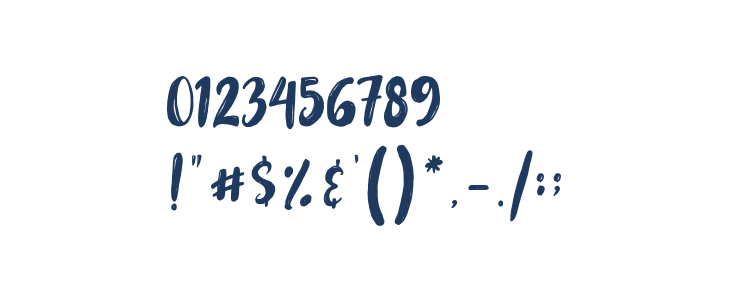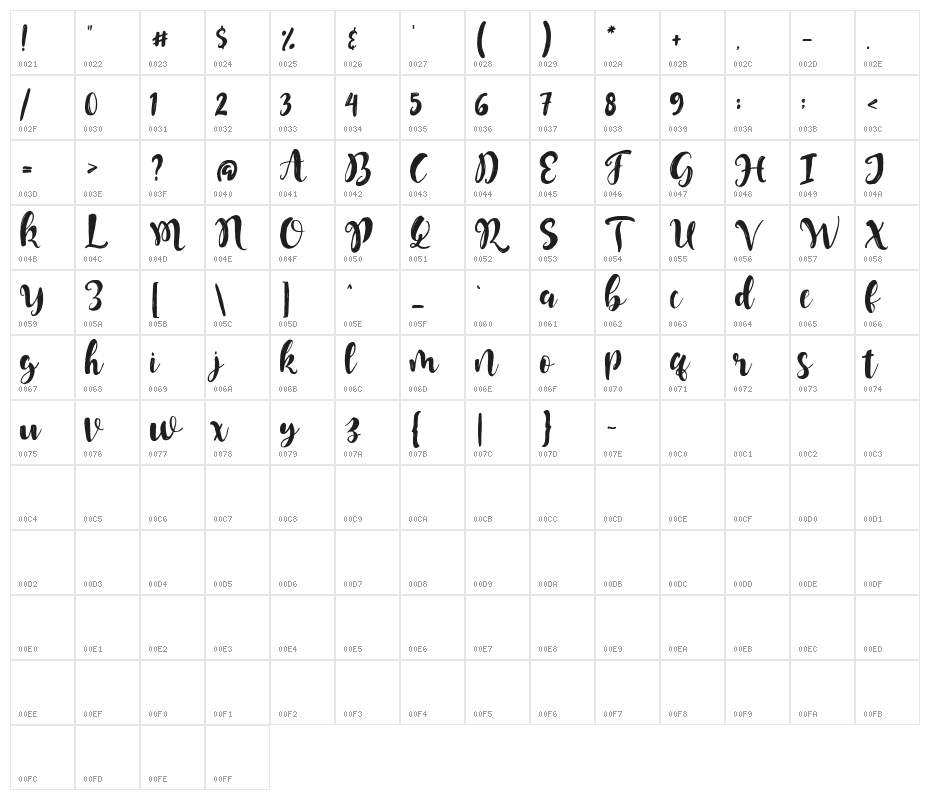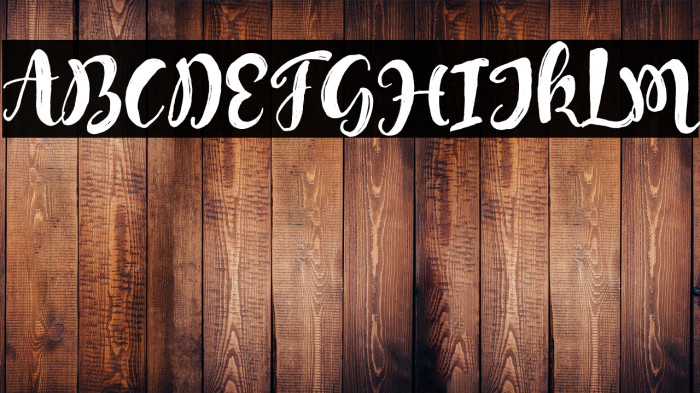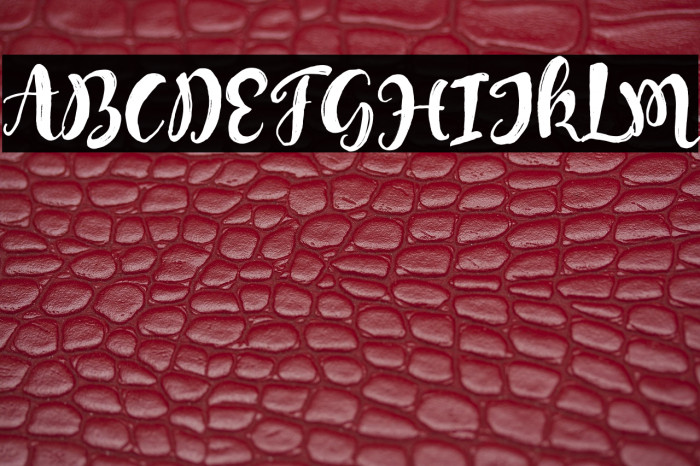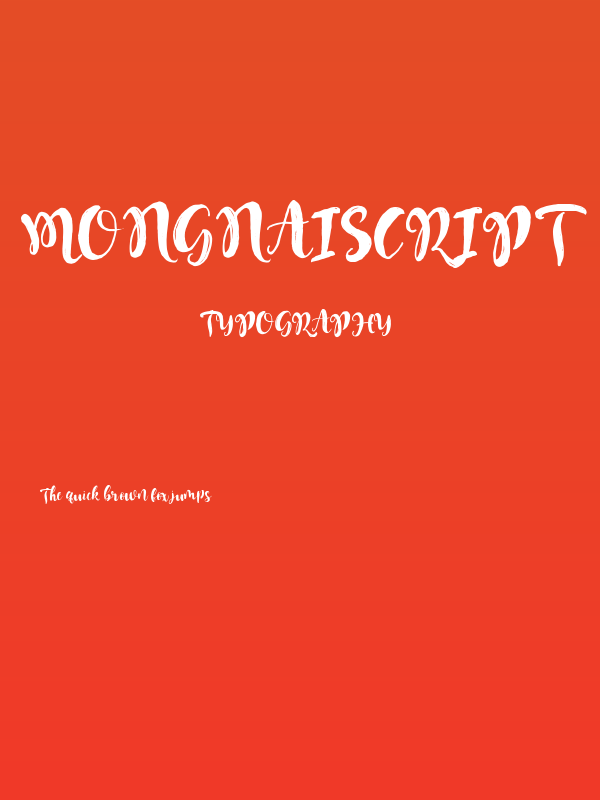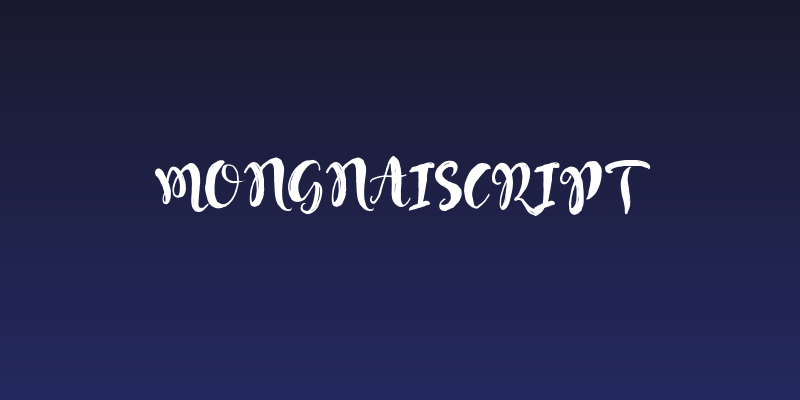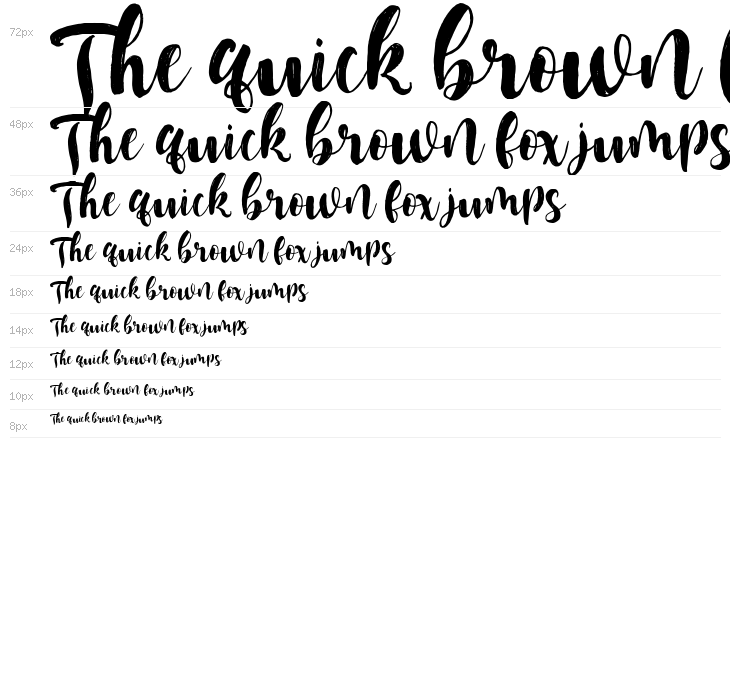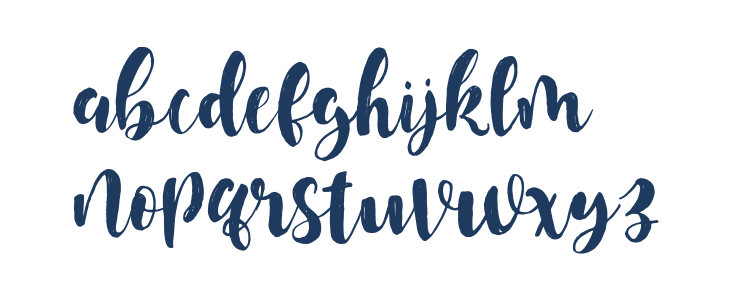
MongnaiScript Font
MongnaiScript Description
This font exhibits a bold and expressive script style, characterized by its fluid and dynamic strokes. The letters are interconnected, creating a sense of continuity and flow. The uppercase letters are slightly more ornate, with flourishes that add a touch of elegance. The lowercase letters maintain a consistent rhythm, enhancing readability while retaining the script's artistic flair. The numerals are clear and bold, matching the overall style of the alphabet. Special characters are designed with the same attention to detail, ensuring they blend seamlessly with the rest of the font. This font is ideal for projects that require a personal and artistic touch, such as invitations, greeting cards, and branding materials.